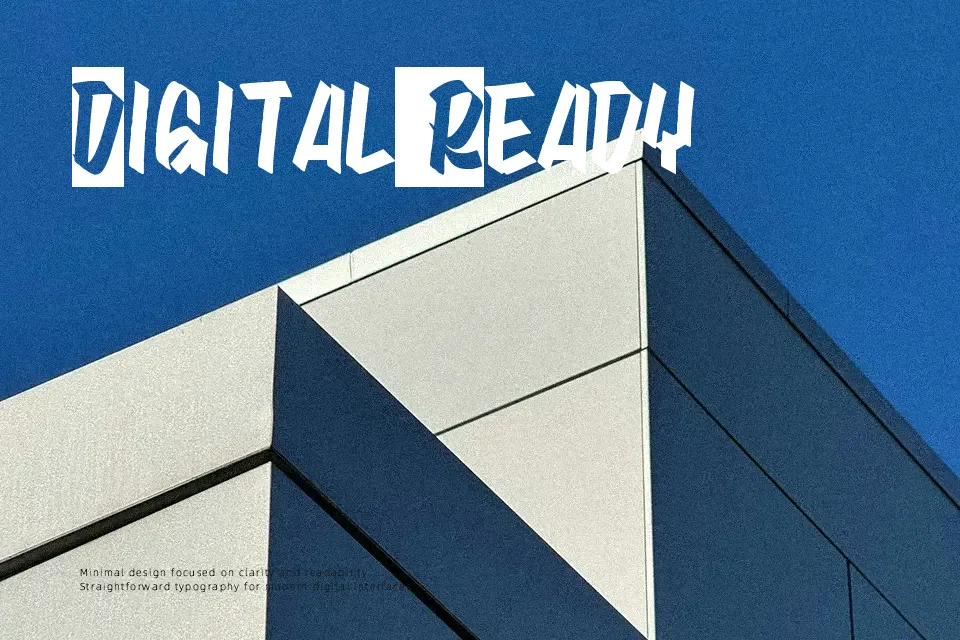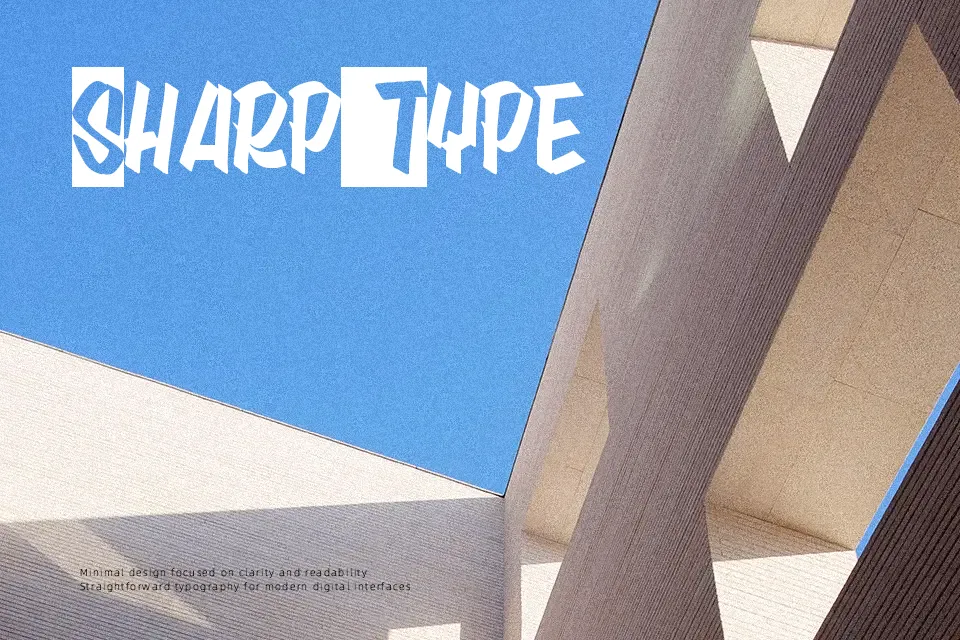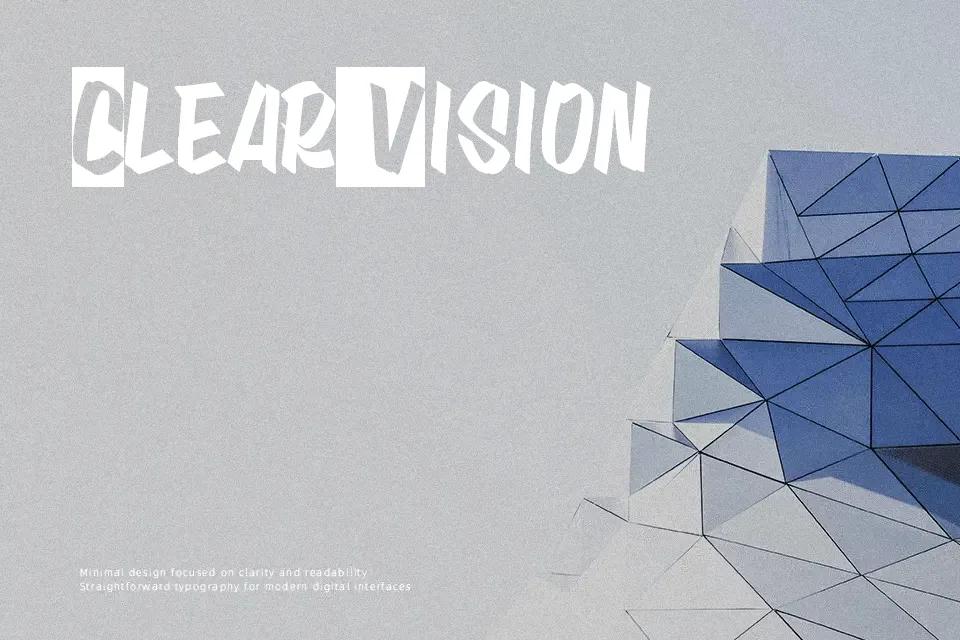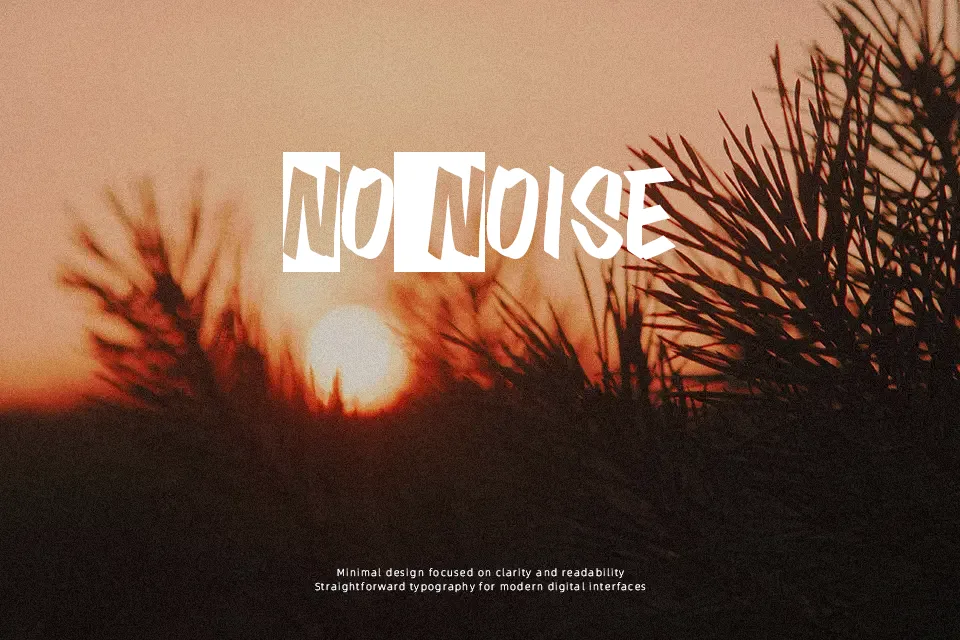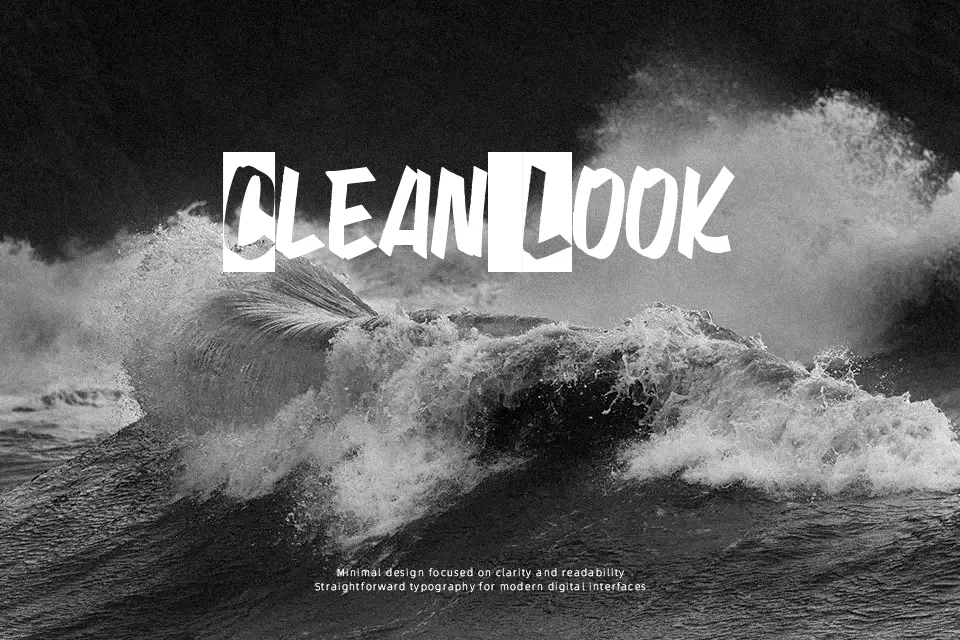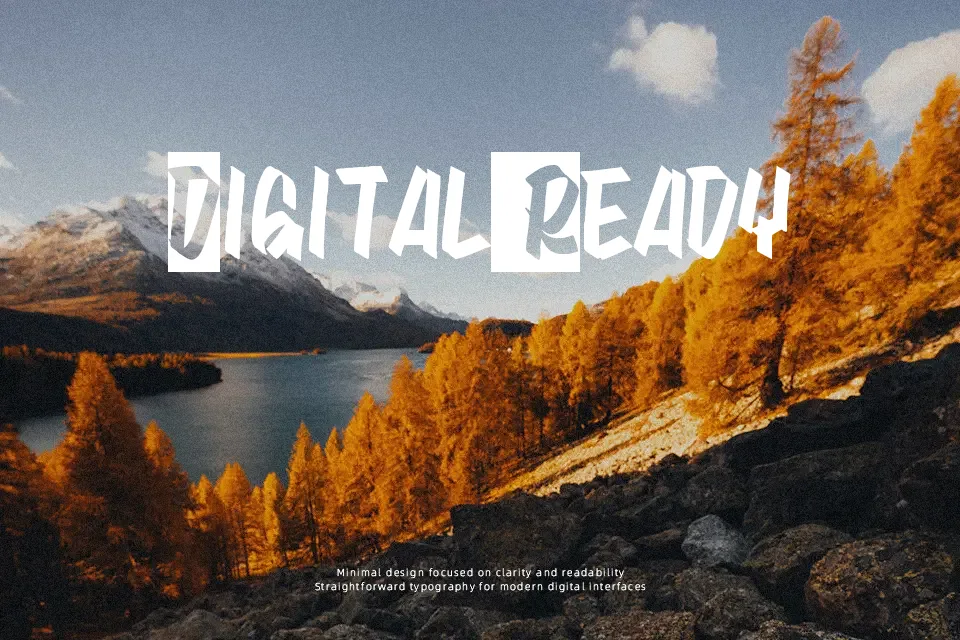
Aula 402
Aula 402 is a bold display font created by Elias Durán and released in 2012. Categorized under the Fancy/Comic genre, it delivers a striking visual punch through its thick, consistent strokes and sharply angled letterforms. The slightly slanted orientation of its characters gives the font a natural sense of motion and energy, making text feel alive on the page. Both uppercase and lowercase letters maintain a cohesive and harmonious design language, while numerals and special characters seamlessly complement the overall aesthetic. With 237 carefully crafted glyphs covering the standard Latin character set, Aula 402 is well-suited for a wide range of design applications. Its bold, assertive presence makes it ideal for headlines, posters, logos, branding materials, social media graphics, and advertising campaigns where visual impact is essential. The font’s playful yet bold character also lends itself well to gaming visuals, kids’ content, and creative editorial projects. Aula 402 is available in a single Regular/Bold weight as a TrueType (.ttf) file and is free for personal use.
Perfect for advertising, branding, and headline, with a bold and comic style.